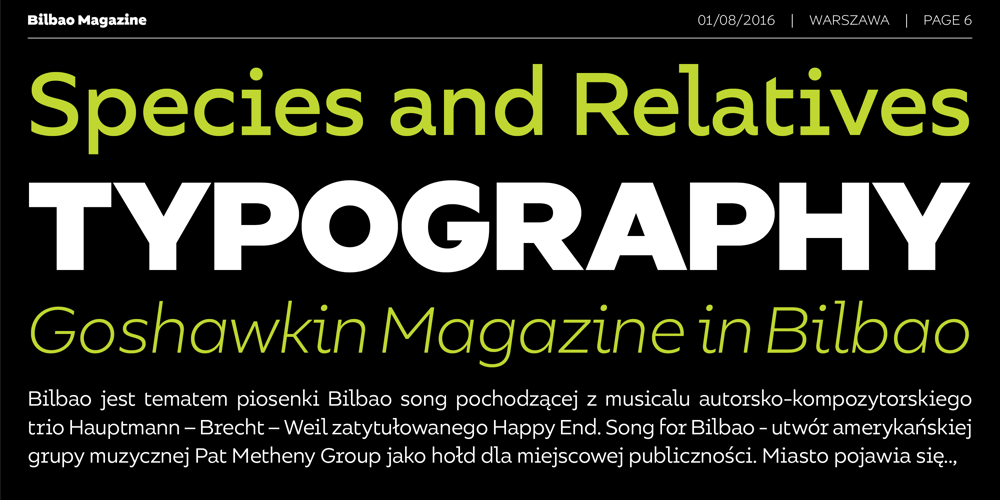
Bilbao Font Family was designed by Mateusz Machalski and published by Machalski. Bilbao contains 18 styles and family package options. Bilbao is a hybrid between sans, slab and mono fonts with geometric details. This typeface is defined by multiple features, which give it a friendly feeling. Bilbao is perfect for branding and display purposes. The entire family consist of 18 styles with italics from Thin to Bold.